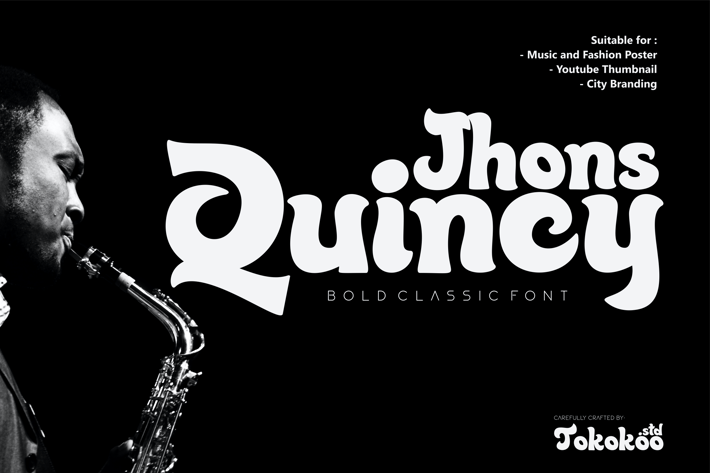
Quincy Jhons - Bold Classic font
Quincy Jhons – The Rhythm of Bold Expression
Quincy Jhons is a retro-modern display font that blends bold volume with smooth humanist curves, designed to deliver expressive impact with a nostalgic soul. Its low contrast, soft terminals, and whimsical rhythm add warmth and style to any project. With a bouncy baseline and generously rounded counters, it brings personality and charm to both digital and print media.
This typeface thrives in lifestyle and fashion branding, editorial spreads, and contemporary packaging. Its look is unmistakably vintage yet clean, making it highly versatile for retro-styled yet modern brand storytelling.
Whether you’re crafting a boutique coffee label, jazz album artwork, or a bold headline for your fashion blog, Quincy Jhons delivers presence and clarity with just enough quirk. Its eye-catching forms are perfect for poster designs, product logos, social media graphics, and custom t-shirts—injecting both style and memorability into your message. The font speaks fluently across themes like music, culture, travel, and artisan goods.
Key Features :
* Why Designers Love Quincy Jhons
- Groovy Yet Contemporary: Balances retro aesthetics with modern execution
- Smooth & Bold: Thick curves with soft movement and a natural flow
- Editorial-Ready: Highly legible for headlines, subheads, and logos
- Versatile Personality: Works in bold branding and expressive merchandise
- Basic latin A-Z and a-z
- Numbers
- Multilingual , support 21 languages
- PUA Encoded Characters